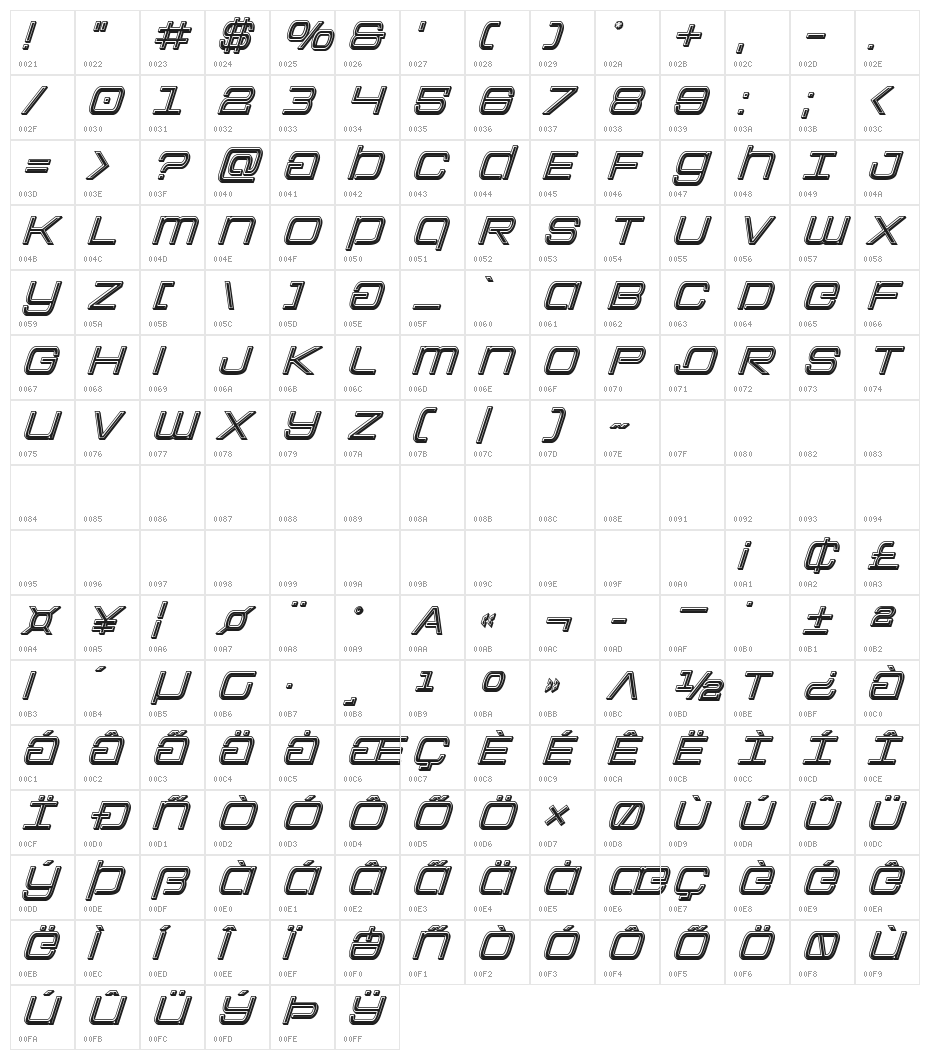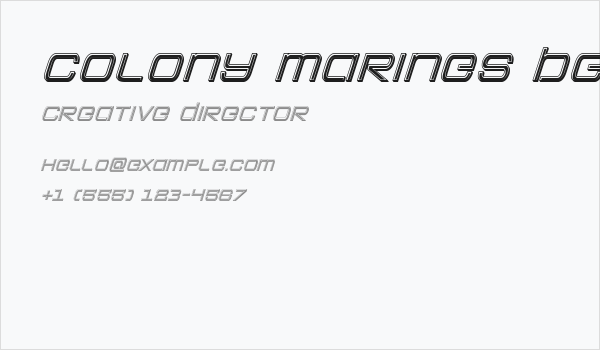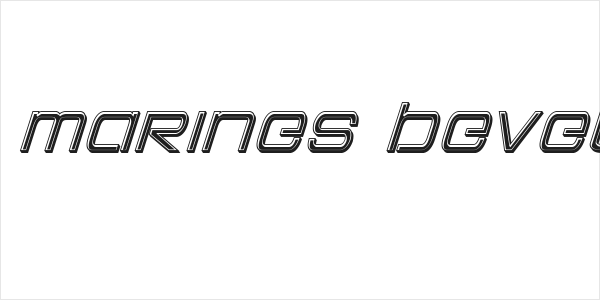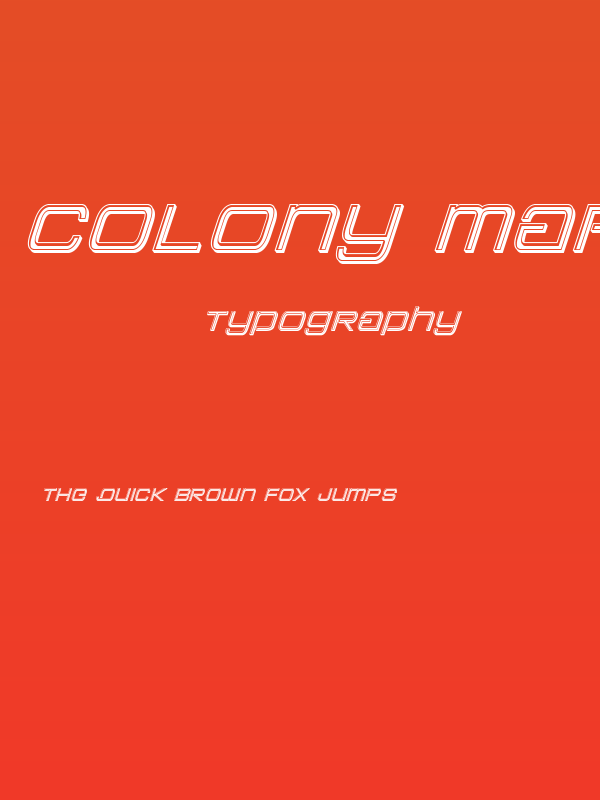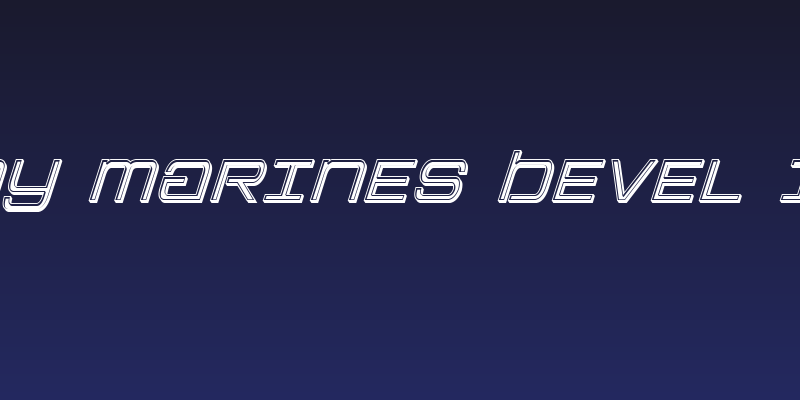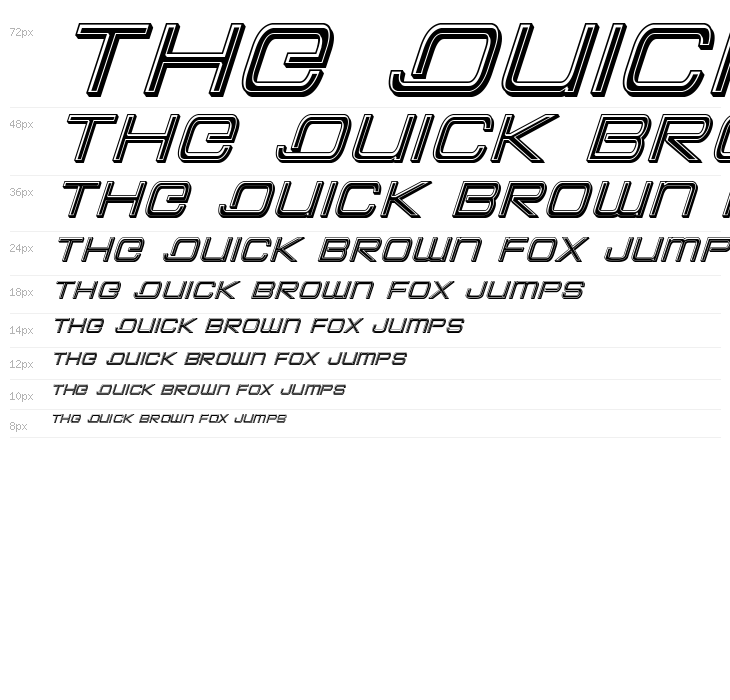
Colony Marines Bevel Italic Font
Colony Marines Bevel Italic Description
This font features a futuristic and dynamic design with a beveled effect that gives it a three-dimensional appearance. The italicized style adds a sense of motion and speed, making it ideal for projects that require a modern and energetic look. The characters are outlined with a bold stroke, enhancing their visibility and impact. The font maintains a consistent width across all characters, providing a uniform appearance. Its geometric shapes and sharp angles contribute to its contemporary aesthetic, making it suitable for technology-related themes or creative displays.
| Proposed Projects | Ideal for technology branding, video game titles, sci-fi posters, and modern advertising campaigns. |